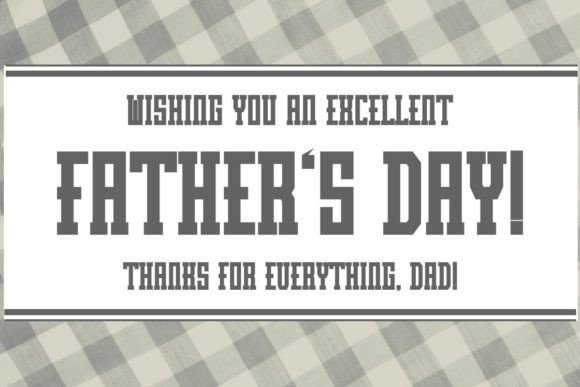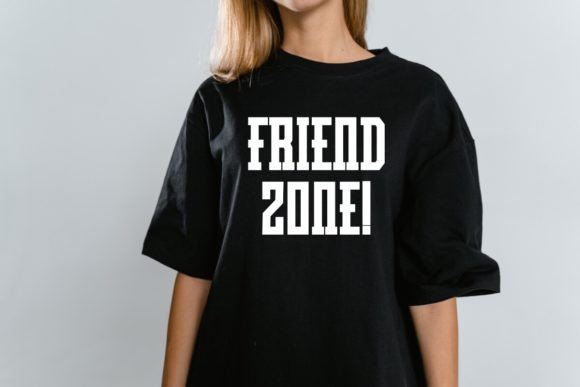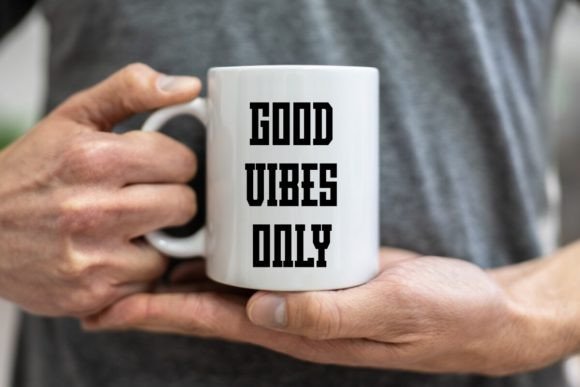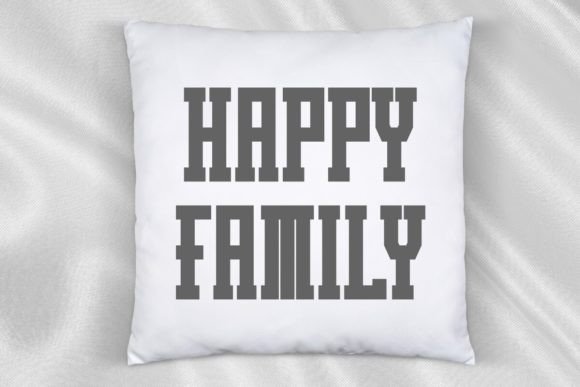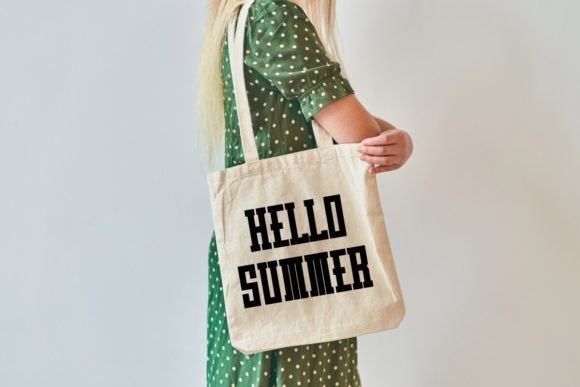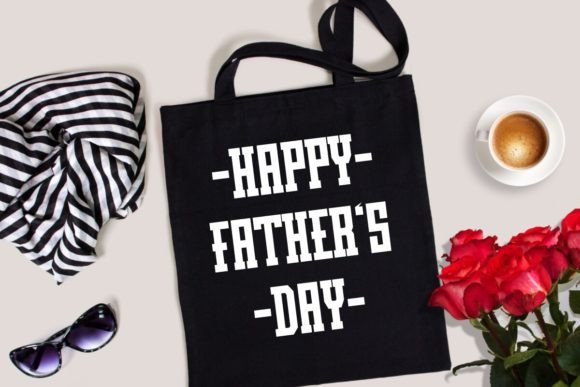
Introduction to Best Daddy Font
Best Daddy is a condensed and clean slab serif font that bring a bold and modern touch to your creative projects.
With its sleek and strong appearance, this font ensures your designs are both impactful and stylish, making it an excellent choice for a variety of applications Perfect for quotes, posters, backgrounds, t-shirts, mugs, tote bags, pillows, jerseys and wall art.
Key Features of Best Daddy Font
Why Choose Best Daddy Font?